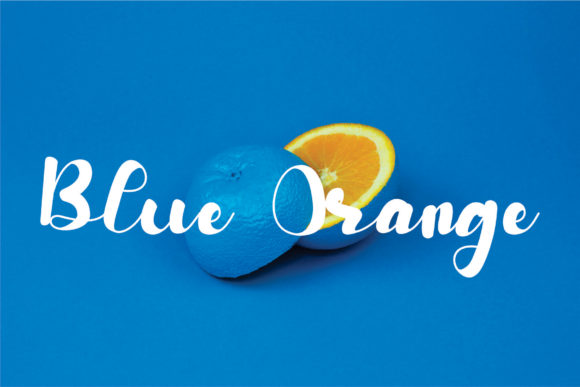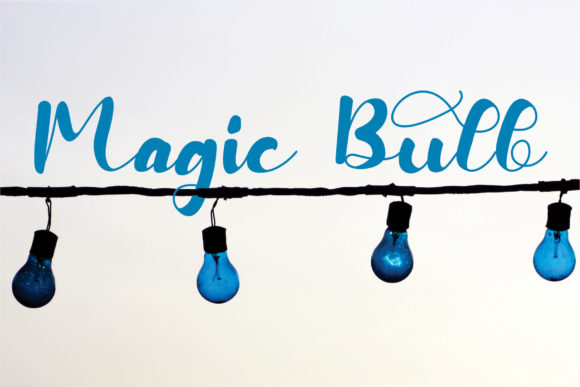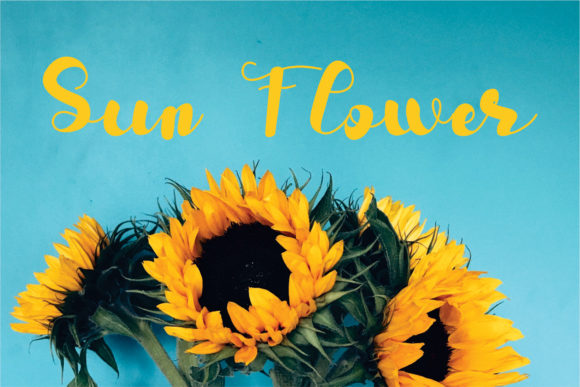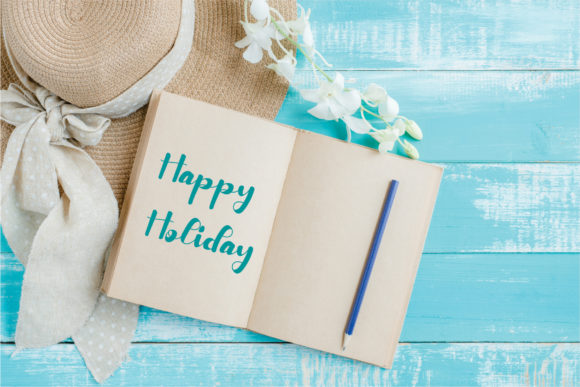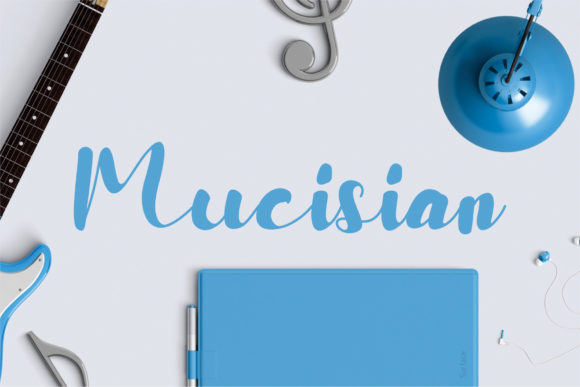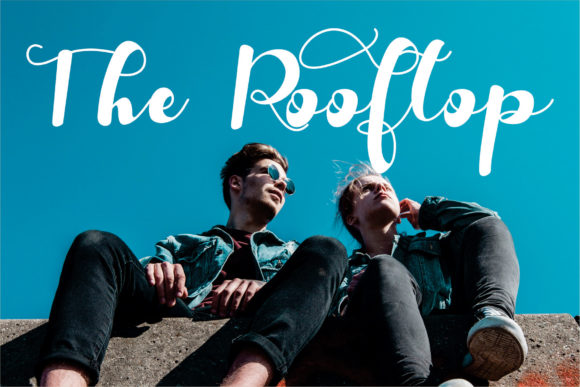
Introducing Chyntia Font: The Perfect Blend of Elegance and Freshness
Are you a designer or crafter looking for a font that can elevate your designs to the next level? Look no further than Chyntia Font, a beautiful modern script font that combines elegance and freshness in a unique and captivating way. With its charming mix of classic sophistication and modern flair, Chyntia is the perfect choice for creating original and outstanding designs that will leave a lasting impression.
The Features of Chyntia Font
So, what makes Chyntia Font so special? For starters, it features gorgeous swashes and ligatures that add a touch of luxury and sophistication to any design. These elegant flourishes make Chyntia incredibly versatile, allowing you to use it for a wide range of projects, from branding and headings to wedding designs, invitations, signatures, logos, labels, and much more.
Whether you’re looking to create a bold and eye-catching design or a more subtle and understated one, Chyntia Font has got you covered. Its modern script style is perfect for designers who want to add a touch of elegance and refinement to their work, while its fresh and playful vibe makes it ideal for crafters who want to create something truly unique and eye-catching.
Uses for Chyntia Font
So, what can you use Chyntia Font for? The possibilities are endless! Here are just a few ideas to get you started:
- Branding: Use Chyntia Font to create stunning logos, business cards, and letterheads that will help you establish a strong brand identity.
- Wedding Designs: Create beautiful wedding invitations, programs, and decorations with Chyntia Font’s elegant and sophisticated style.
- Headings and Titles: Use Chyntia Font to add a touch of elegance and refinement to your headings and titles, making them stand out on any design.
- Signatures and Logos: Create stunning signatures and logos with Chyntia Font’s gorgeous swashes and ligatures.
- Labels and Packaging: Use Chyntia Font to create eye-catching labels and packaging that will make your products stand out on store shelves.
Why Choose Chyntia Font?
So, why should you choose Chyntia Font over other fonts? Here are just a few reasons:
- Unique and Versatile: Chyntia Font is a unique and versatile font that can be used for a wide range of projects and designs.
- Elegant and Refined: Chyntia Font features a elegant and refined style that is perfect for designers who want to add a touch of sophistication to their work.
- Fresh and Playful: Chyntia Font also has a fresh and playful vibe that makes it ideal for crafters who want to create something truly unique and eye-catching.
In conclusion, Chyntia Font is a beautiful modern script font that is perfect for designers and crafters who want to create original and outstanding designs. With its charming mix of elegance and freshness, gorgeous swashes and ligatures, and versatility, Chyntia Font is the perfect choice for a wide range of projects and designs. So why wait? Download Chyntia Font today and start creating stunning designs that will leave a lasting impression!
Key Features of Chyntia Font
- Beautiful modern script font
- Charming mix of elegance and freshness
- Gorgeous swashes and ligatures
- Incredibly versatile
- Perfect for branding, headings, wedding designs, invitations, signatures, logos, labels, and much more!